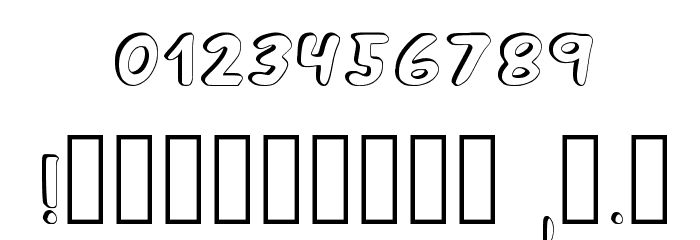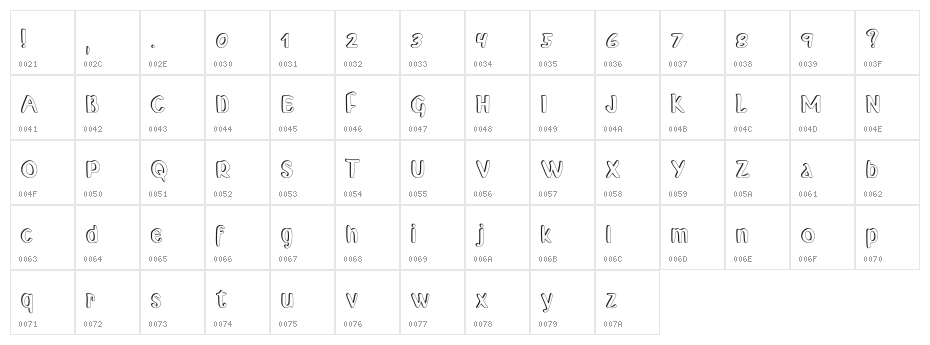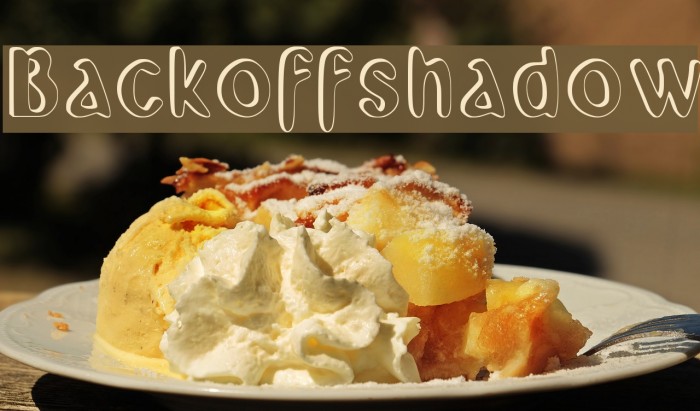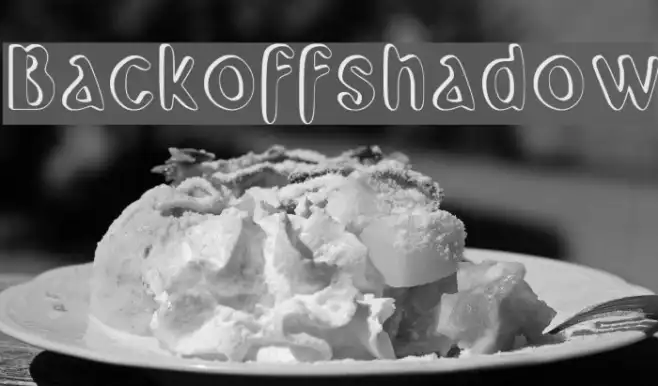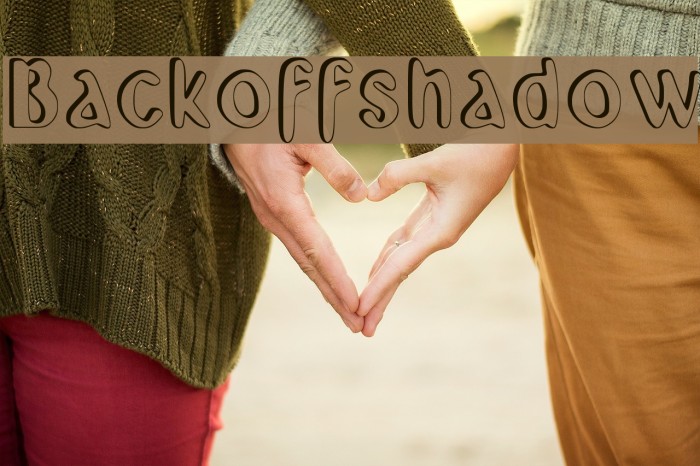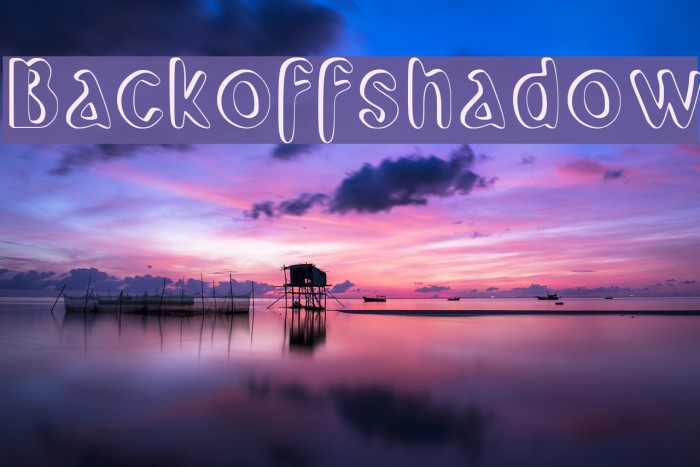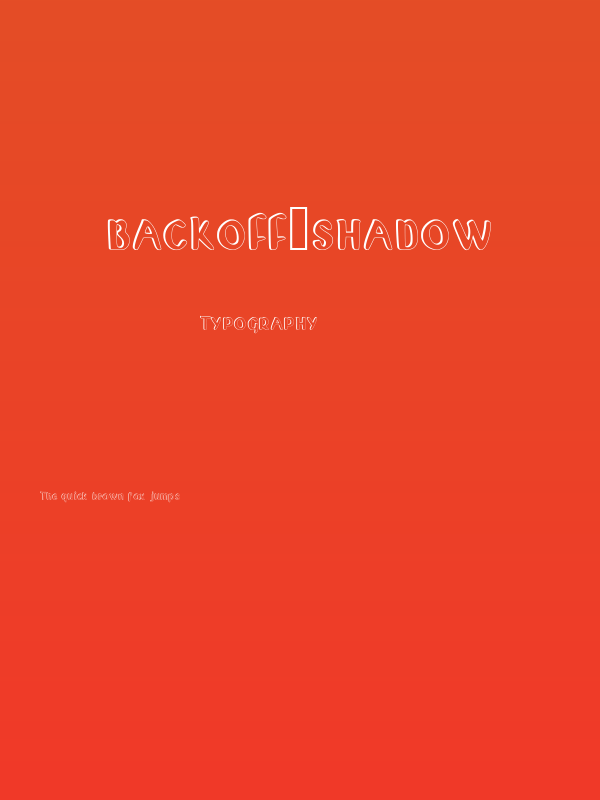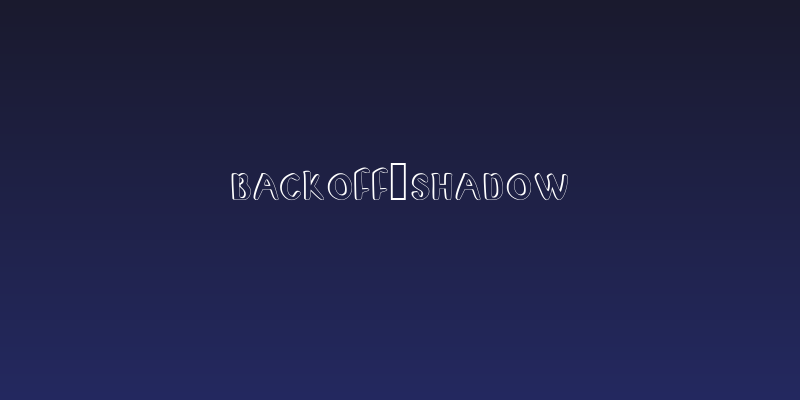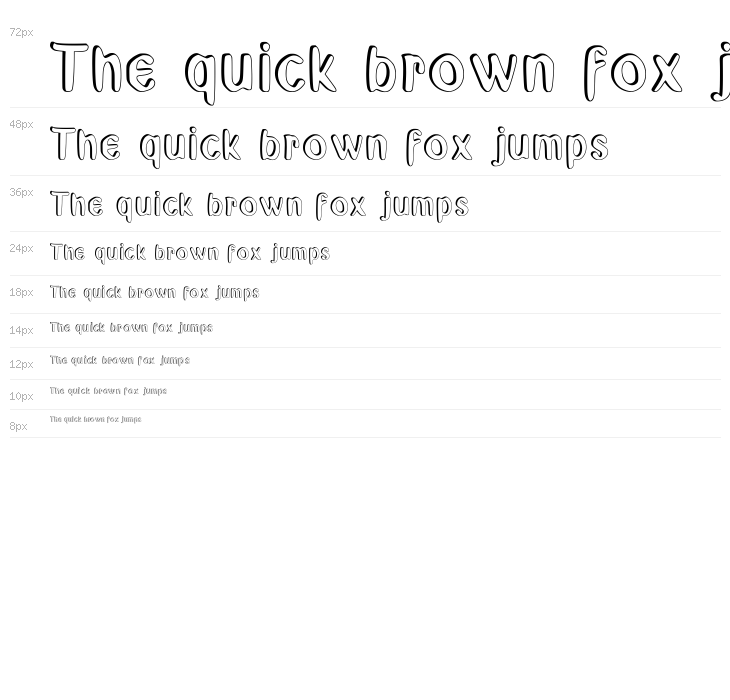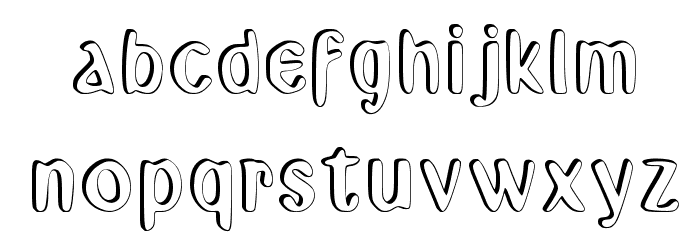
Backoff_shadow Font
Backoff_shadow Description
This font features a playful and bold design with a unique shadow effect that gives each character a three-dimensional appearance. The letters are rounded and have a hand-drawn feel, adding a whimsical and informal touch. The uppercase and lowercase letters maintain a consistent style, while the numbers and special characters complement the overall aesthetic. The shadow effect is consistent across all characters, enhancing the font's visual impact and making it suitable for eye-catching designs.
Overall StylePlayful, Whimsical
Proposed ProjectsIdeal for children's books, playful branding, posters, and creative invitations.